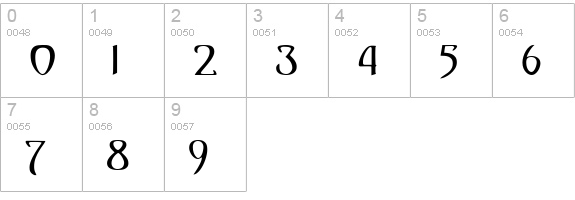
Basra font is a beautifully designed typeface that exudes elegance and sophistication. Its unique and intricate letterforms make it stand out in any design project, adding a touch of class and style. This versatile font is suitable for a wide range of applications, from branding to editorial design. What's even better is that Basra font is available for free download at FontsMarket.com. You can easily access this stunning font and add it to your collection without any cost. Don't miss out on this opportunity to enhance your designs with the exquisite beauty of Basra font. Download it today and elevate your creative projects to a whole new level.